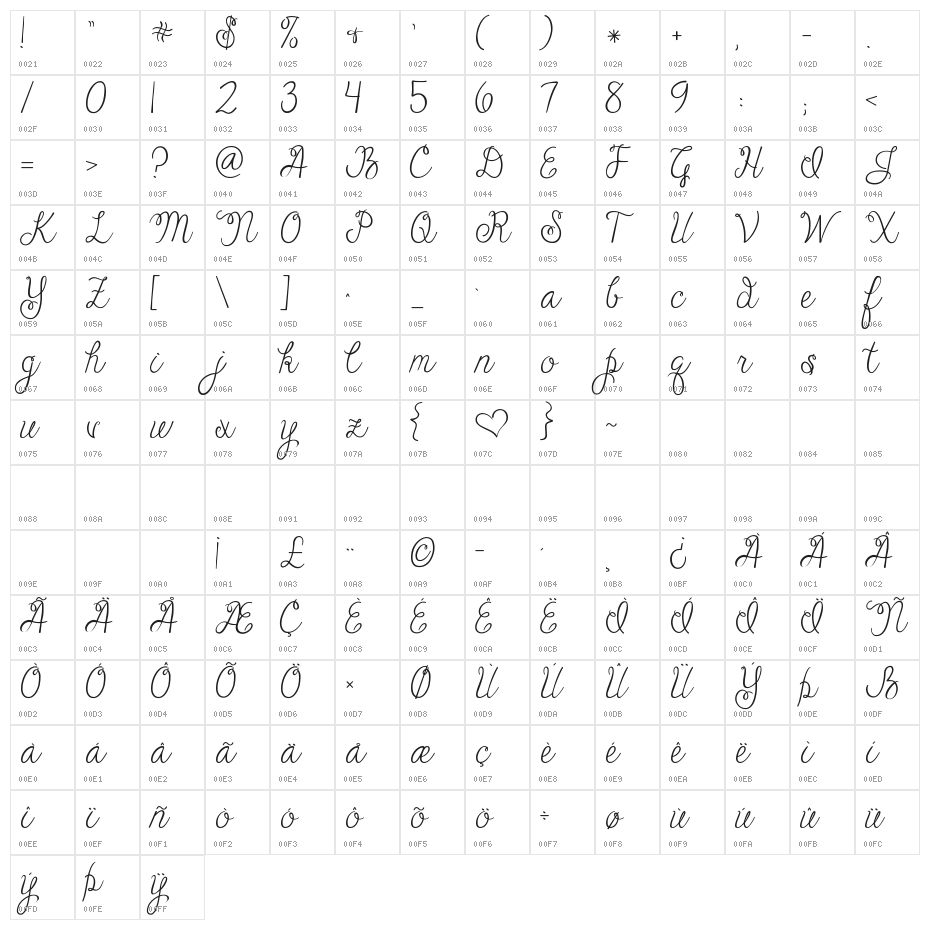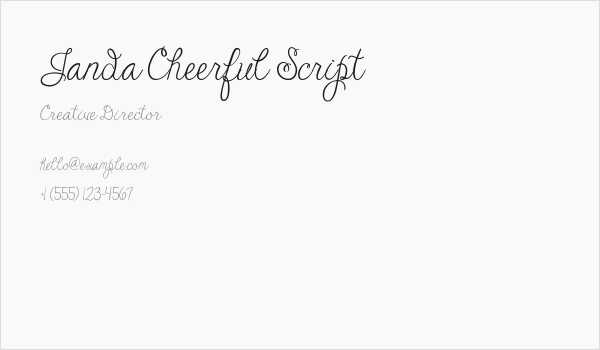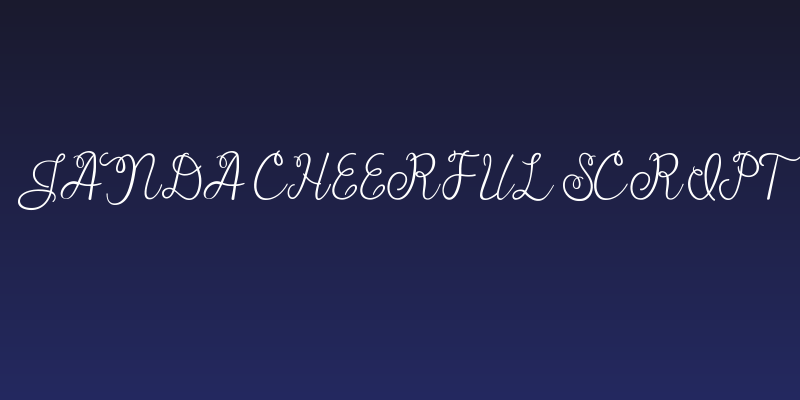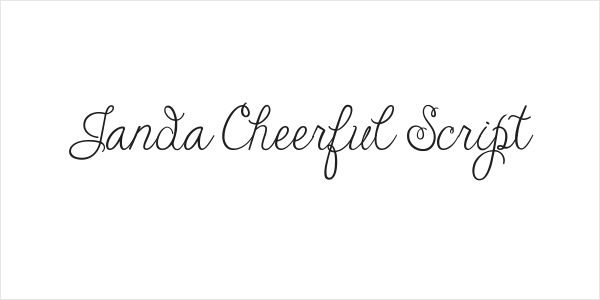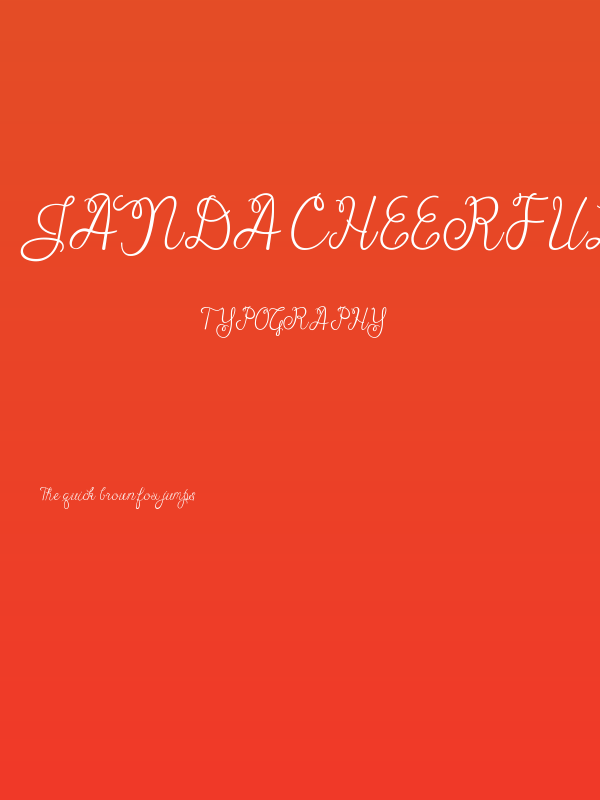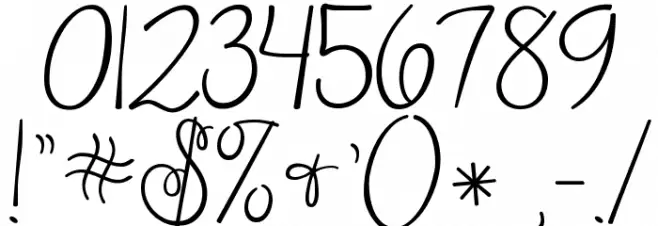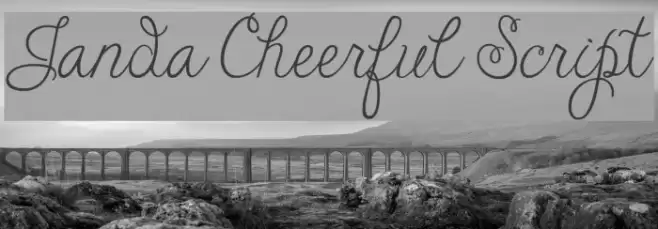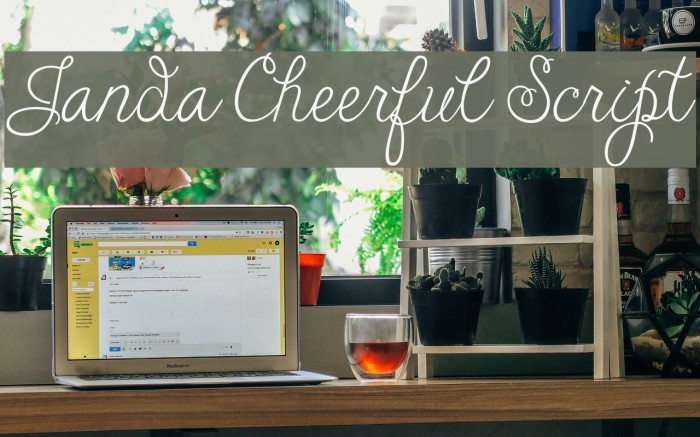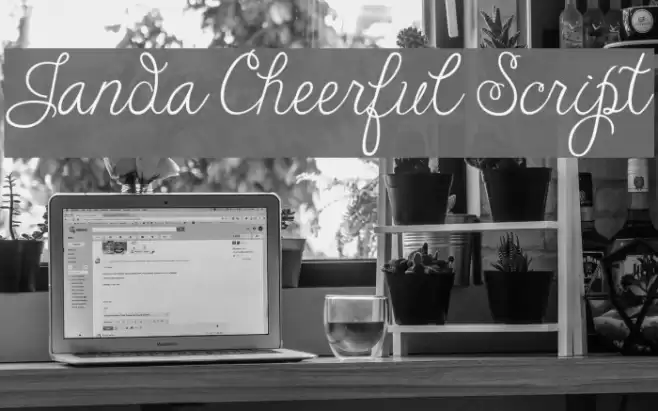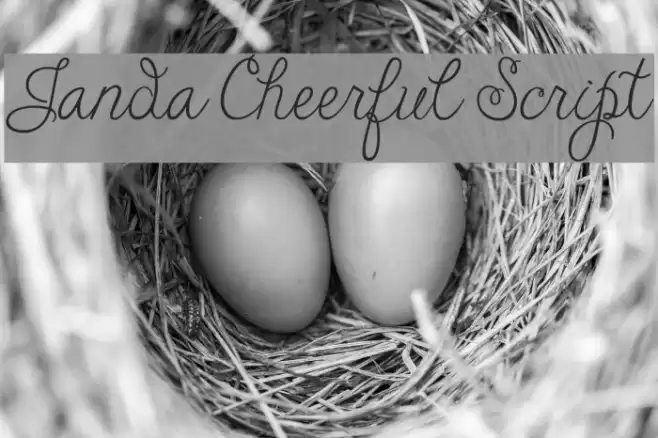
Janda Cheerful Script Font
Janda Cheerful Script Description
This font exudes a playful and whimsical charm, characterized by its flowing, cursive script style. The letters are interconnected with elegant loops and swirls, giving it a handwritten feel. The uppercase letters are slightly more ornate, with additional flourishes that add to the overall decorative appearance. The lowercase letters maintain a consistent flow, enhancing readability while retaining a sense of elegance. Numbers and special characters are designed to match the script's fluidity, ensuring a cohesive look across all text elements. This font is perfect for projects that require a touch of personality and creativity.
| Use Case | Logos, Invitations, Greeting Cards |
| Proposed Projects | Ideal for wedding invitations, greeting cards, personal branding, and creative projects that require a personal touch. |